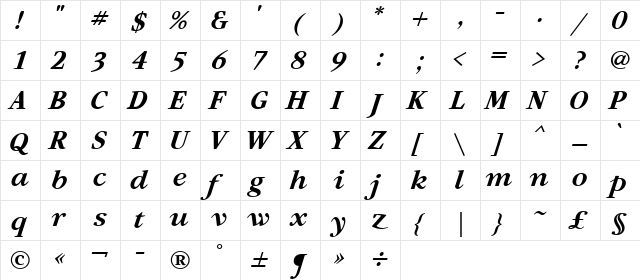
Artemius TT Bold Italic
Design Context for Artemius TT Typeface
Artemius TT offers clean, dependable letterforms without strong stylistic allegiance, making it a practical choice for designers who need flexibility. The slanted form adds forward momentum and visual energy. Its bold stroke weight gives it real presence on the page.